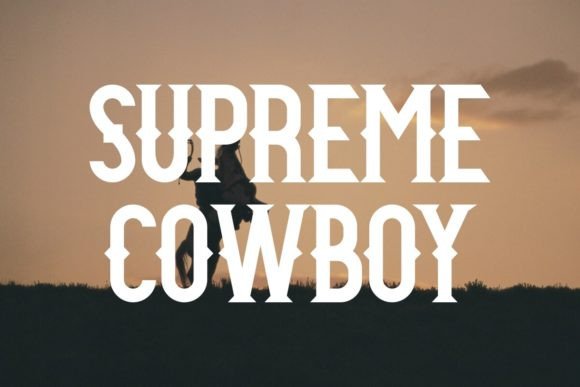
Summer Cowboy Font
Summer Cowboy is a bold and Western vintage font that perfect for adding a touch of rustic charm and Western flair to your designs. Ideal for creating striking posters, captivating backgrounds, trendy t-shirts, stylish mugs, versatile tote bags, and cozy pillows.